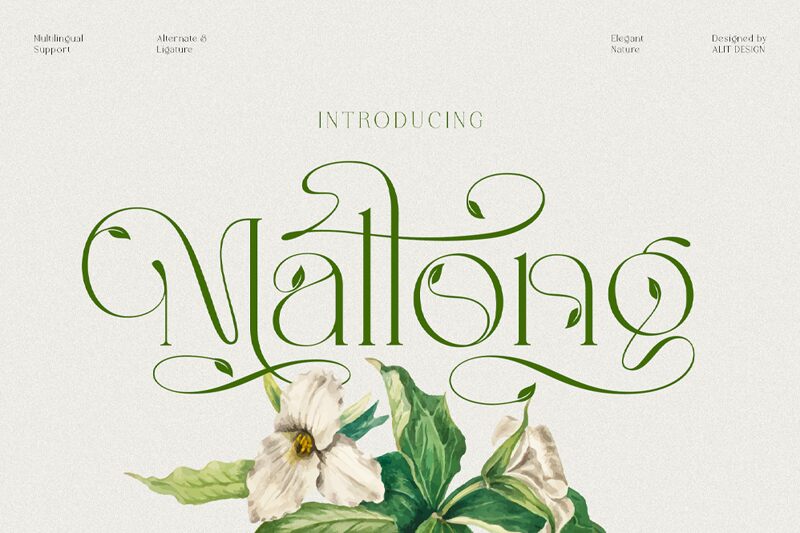
Mallong, a creation by Alit Design, presents an elegant harmony of tradition and refinement. This serif font exudes a classic touch with its subtle curves and delicate serifs that give it a light and airy quality. The characters dance with an understated grace, making Mallong the perfect choice for designs that require a hint of sophistication without overwhelming the senses.
The font's aesthetic appeal lies in its balanced proportions and the gentle contrast between its strokes. Its serene disposition makes it well-suited for luxurious branding, editorial design, and high-end product packaging where a touch of class is paramount. Whether setting the tone for an invitation or elevating the elegance of a logo, Mallong infuses each word with poise and distinction.